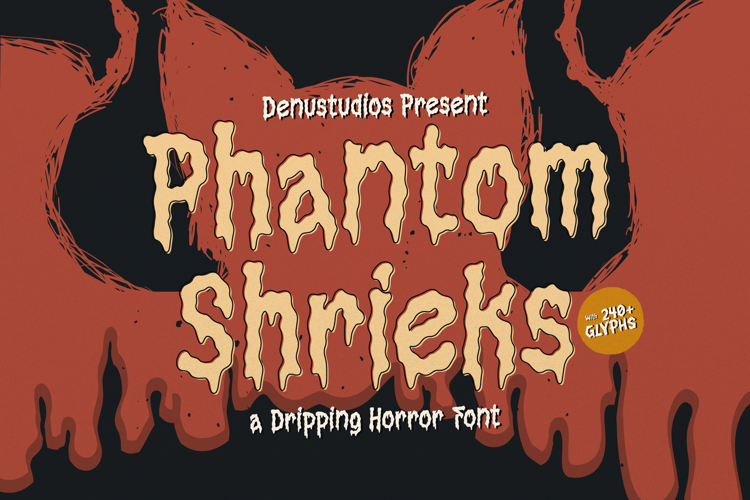
Phantom Shrieks Font
Phantom Shrieks | Dripping Horror Font product packaging, mugs, quotes, posters, shopping bags, t-shirts, book covers, name card, invitation cards, greeting cards, label, photography, watermark, special events, and all your other lovely projects that need a Horror taste.